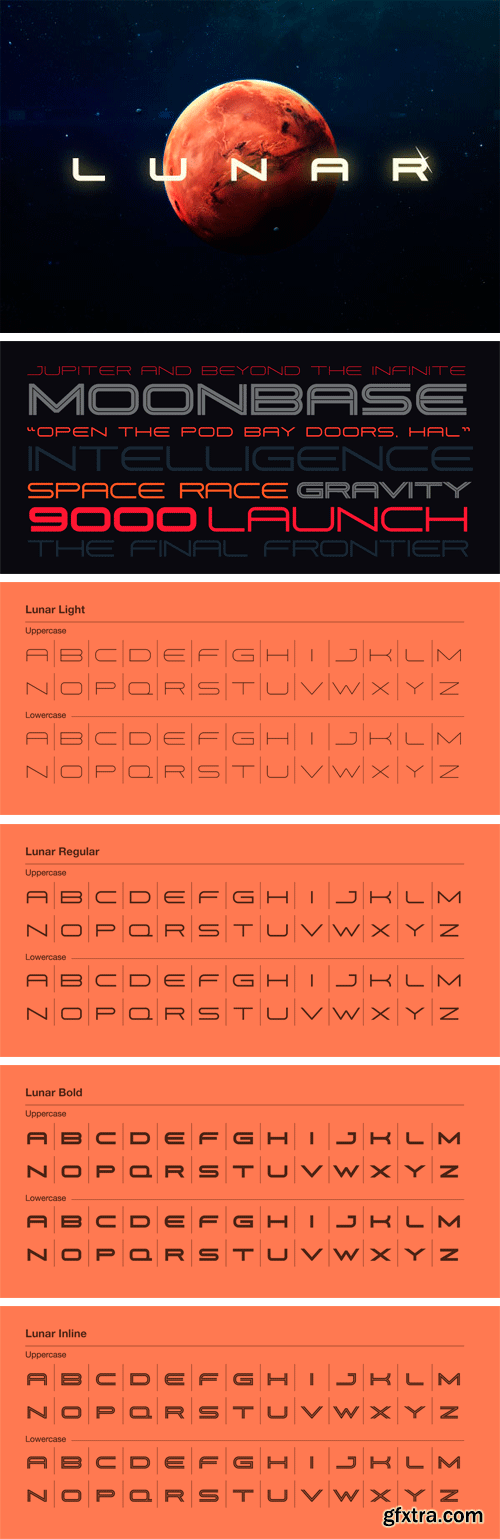
Lunar Font Family
Space, the final frontier. This extended, sans-serif will guide you on your journey through the cosmos. Font comes in regular, light, bold and inline.